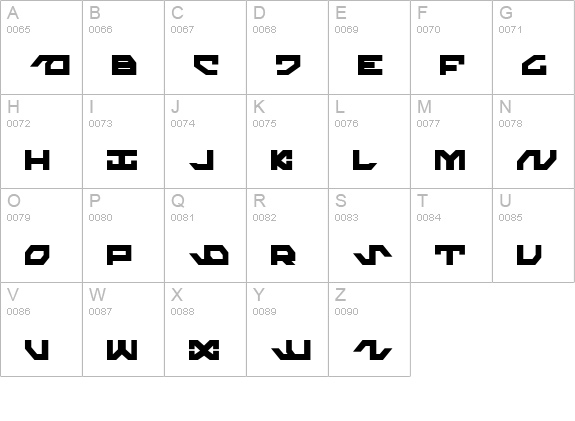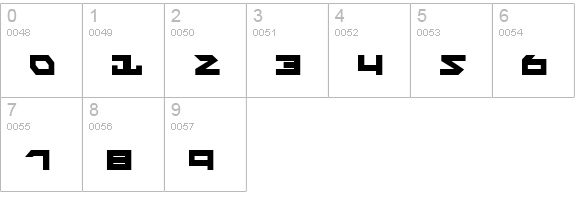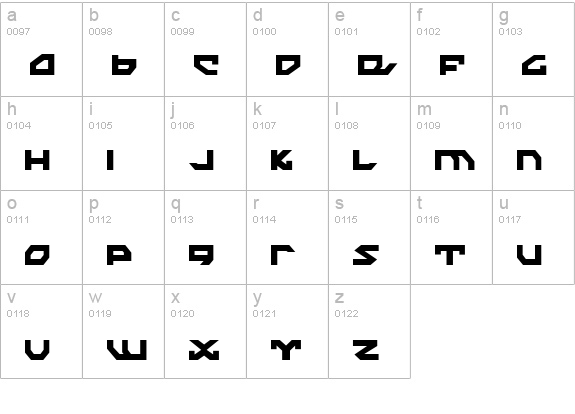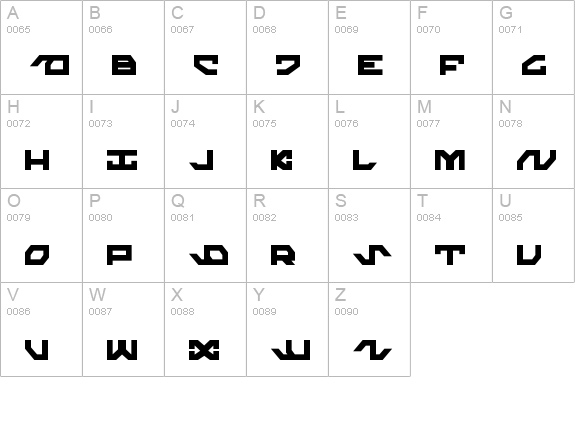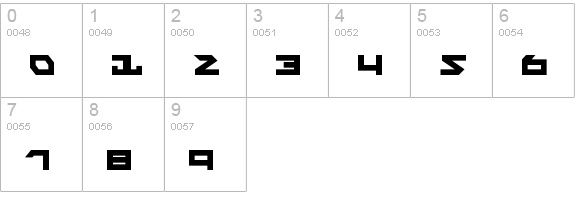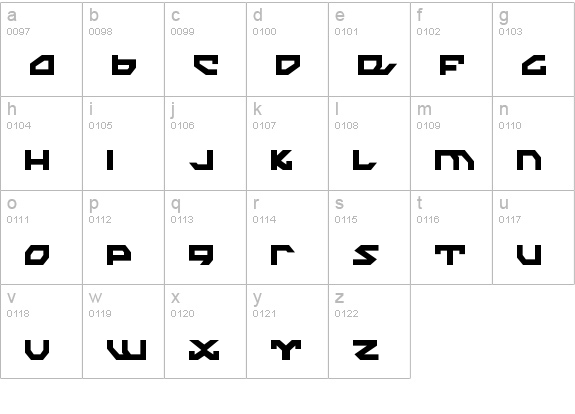
Nightrunner Condensed is a distinctive, condensed-width variant in the Nightrunner typeface family \xE2\x80\x94 well suited to design and typography projects.
Nightrunner Condensed font is a sleek and modern typeface that exudes sophistication and elegance. With its clean lines and sharp edges, this font is perfect for creating eye-catching designs that demand attention. Whether you're designing a logo, poster, or website, Nightrunner Condensed will give your project a professional and polished look. The best part? Nightrunner Condensed font is completely free to download at FontsMarket.com. This means you can add this versatile font to your collection without breaking the bank. So why wait? Elevate your designs with Nightrunner Condensed and make a statement with every word you write.